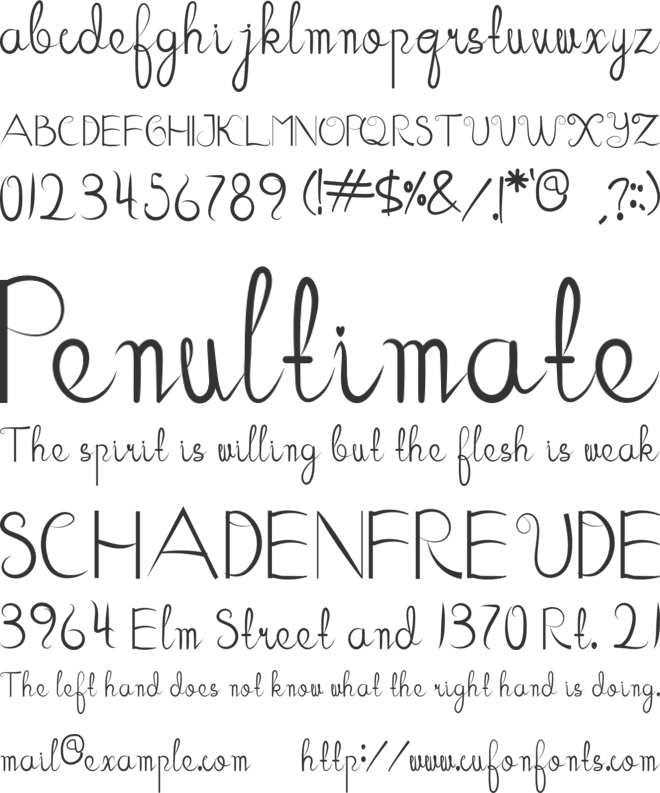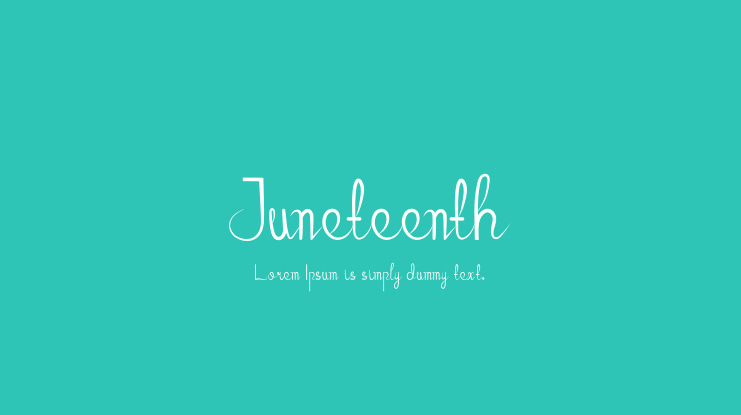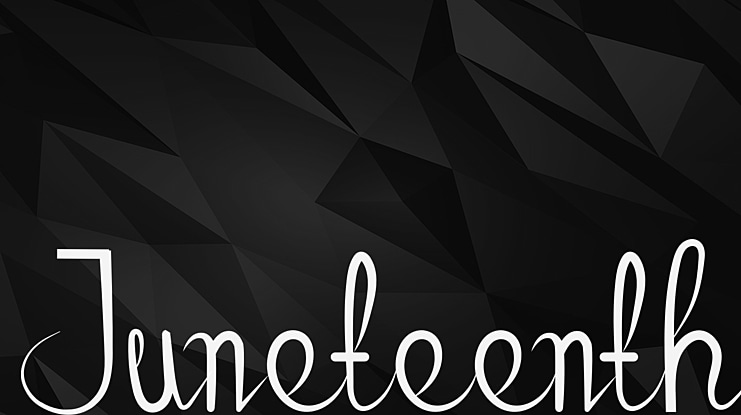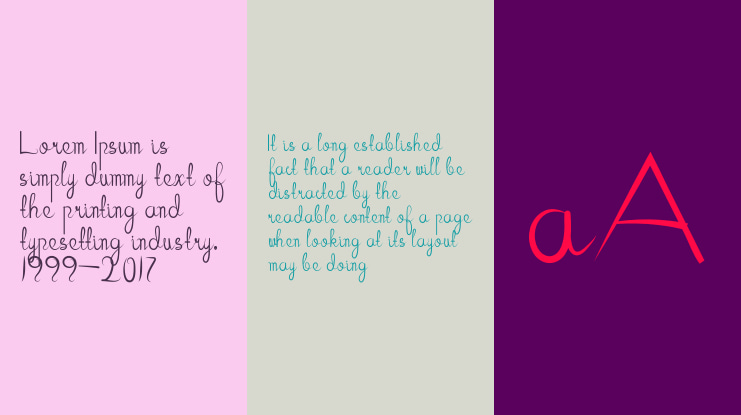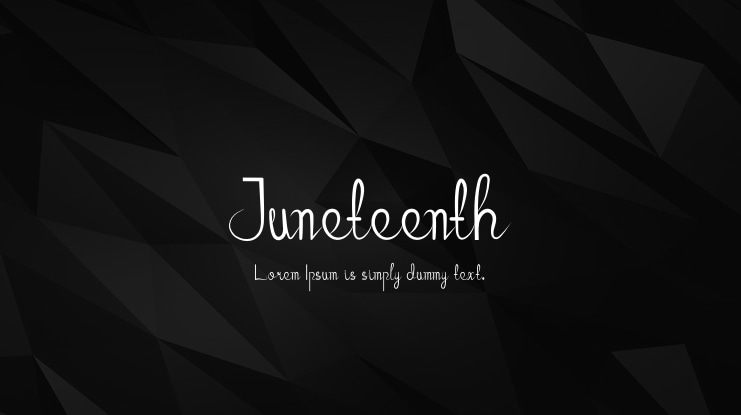
Juneteenth Font
Juneteenth is a lovely and timeless handwritten font. It is the best choice for creating eye catching logos, branding and quotes. Every letter has a unique and beautiful touch, which will make your design come alive!